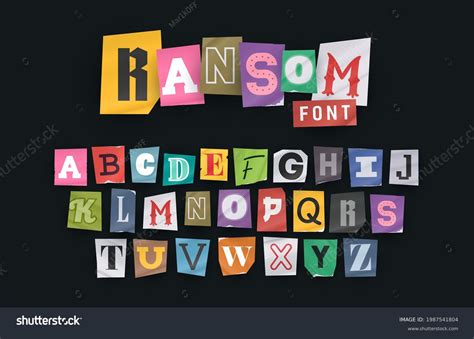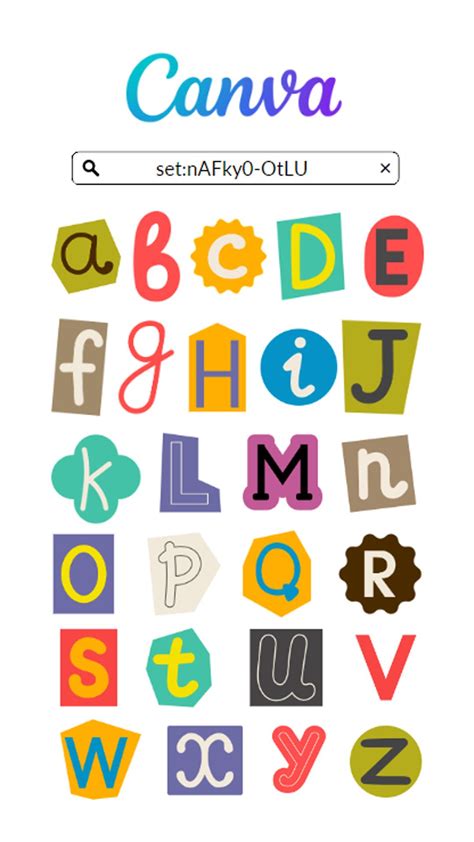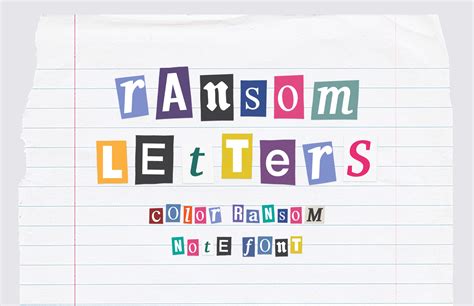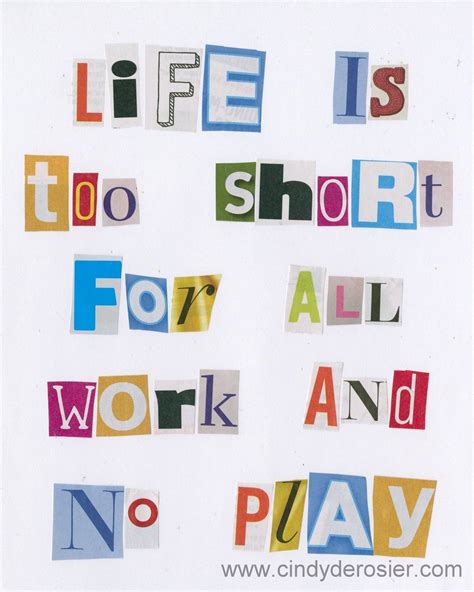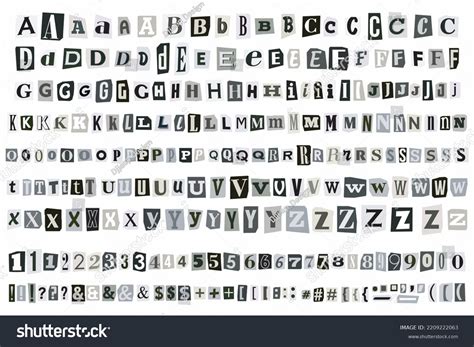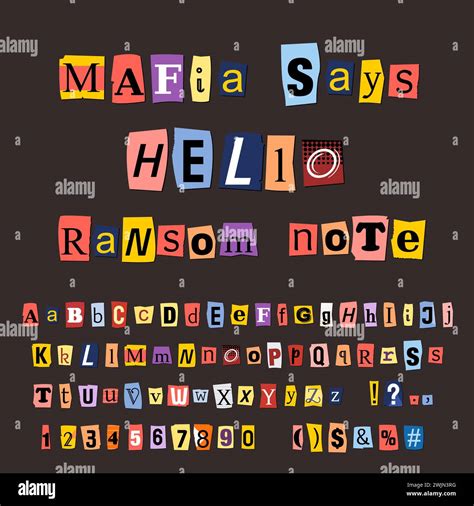
In the world of typography, certain fonts carry a unique allure, often tied to their historical or cultural significance. One such font is the Ransom Note Font. This font, inspired by the classic ransom notes seen in movies and literature, has a distinctive, handcrafted look that evokes a sense of mystery and intrigue. Whether you're a designer looking to add a touch of drama to your projects or a typography enthusiast curious about its origins, understanding the Ransom Note Font can be both fascinating and practical.
What is the Ransom Note Font?
The Ransom Note Font is a typeface designed to mimic the look of traditional ransom notes. These notes are typically created by cutting out letters from newspapers, magazines, or other printed materials and pasting them together to form a message. The result is a chaotic, uneven, and often illegible text that adds a layer of authenticity to the ransom note’s menacing tone.
The Ransom Note Font captures this essence by using a variety of letter styles and sizes, creating a disjointed yet cohesive appearance. This font is often used in graphic design, film, and literature to convey a sense of danger, mystery, or urgency.
History and Origins
The concept of the ransom note has been a staple in crime fiction and real-life crime stories for decades. The idea of using cut-out letters to create a message dates back to the early 20th century, with notable examples appearing in various high-profile kidnapping cases. The Ransom Note Font draws inspiration from these historical examples, aiming to recreate the chaotic and unsettling aesthetic of these infamous notes.
While the exact origins of the Ransom Note Font as a digital typeface are unclear, it gained popularity in the digital age as designers sought to replicate the look of classic ransom notes in their projects. The font’s unique style has made it a favorite among graphic designers, filmmakers, and writers looking to add a touch of intrigue to their work.
Characteristics of the Ransom Note Font
The Ransom Note Font is characterized by its irregular and eclectic appearance. Here are some key features that define this font:
- Variety of Letter Styles: The font includes a mix of different letter styles, sizes, and weights, mimicking the look of letters cut from various sources.
- Uneven Spacing: The spacing between letters and words is often irregular, adding to the chaotic and disorganized feel of the text.
- Handcrafted Look: The font has a handcrafted, almost collage-like appearance, with letters that seem to be pasted together rather than typed.
- Limited Legibility: Due to its irregular nature, the Ransom Note Font can be difficult to read, especially in longer passages. This limited legibility is a key part of its charm and is often used to convey a sense of urgency or mystery.
Applications of the Ransom Note Font
The Ransom Note Font has a wide range of applications, particularly in fields where a sense of intrigue or danger is desired. Here are some common uses:
- Graphic Design: Designers often use the Ransom Note Font to create posters, flyers, and other promotional materials that need a touch of mystery or urgency.
- Film and Television: In movies and TV shows, the Ransom Note Font is used to create on-screen text, such as ransom notes, warning messages, or clues in mystery plots.
- Literature: Authors and publishers use the font to design book covers, chapter headings, or even entire passages to enhance the narrative’s suspenseful or dramatic elements.
- Advertising: Advertisers may use the Ransom Note Font to create eye-catching and memorable campaigns, especially for products or services that benefit from a sense of intrigue.
Creating Your Own Ransom Note Font
If you’re interested in creating your own Ransom Note Font, you can follow these steps to achieve a similar look:
- Gather Source Materials: Collect a variety of printed materials, such as newspapers, magazines, and books. The more diverse your sources, the more authentic your font will look.
- Cut Out Letters: Carefully cut out individual letters from your source materials. Try to include a mix of different fonts, sizes, and styles.
- Scan or Photograph: Scan or photograph your cut-out letters to create digital images. Ensure that the images are high-resolution for better quality.
- Edit and Arrange: Use graphic design software to edit and arrange your letters. You can adjust the spacing, size, and orientation to create the desired effect.
- Create a Font File: If you have the necessary skills, you can use font creation software to convert your arranged letters into a usable font file. Alternatively, you can use online tools or hire a professional to help with this step.